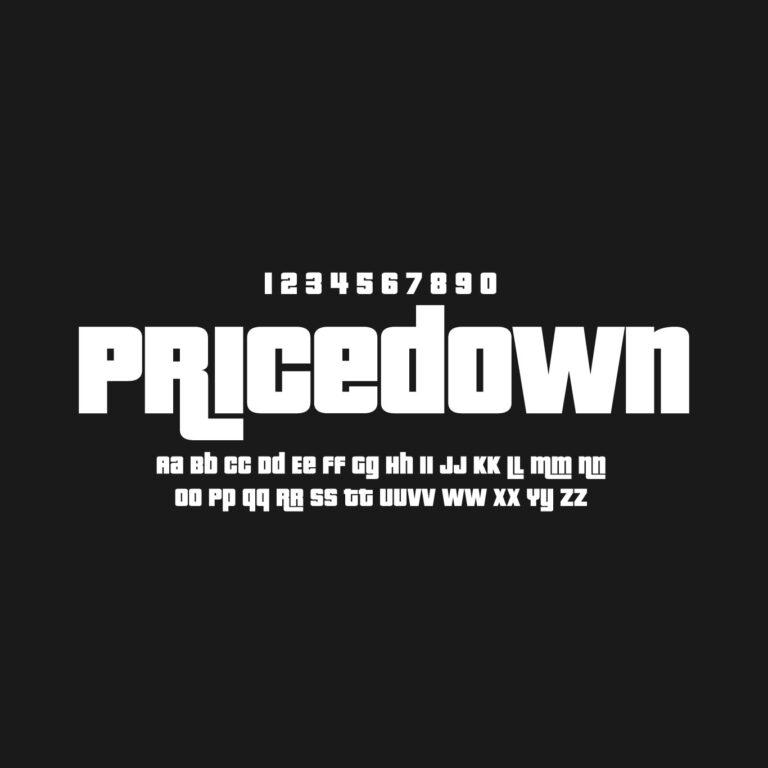
Pricedown Font is a bold display typeface with a distinctive, heavy, and playful lettering style. Its thick shapes, rounded details, and expressive character forms make it a strong choice for designs that need an energetic title font with a retro entertainment feel.
The font is widely recognized for its connection to the visual style associated with the Grand Theft Auto logo, which makes it a popular search choice for users looking for a GTA-style font. However, Pricedown can also be used beyond game-inspired designs, especially in posters, music covers, YouTube thumbnails, event graphics, street-style visuals, and bold branding experiments.
Pricedown was designed by Ray Larabie and published by Typodermic Fonts. The typeface has a strong display personality and works best in large sizes, where its bold curves and compact structure can stand out clearly. It is not a body text font; instead, it is made for headlines, titles, logos, and short words that need immediate visual impact. Typodermic describes Pricedown Black as available for free with a commercial-use desktop license, while broader licensing may be needed for web embedding, apps, or other uses.
Use Pricedown Font when you want a typeface that feels bold, urban, playful, and instantly recognizable. It can work well for gaming graphics, parody-style designs, album covers, digital posters, stickers, social media visuals, and high-impact title layouts.
Designer: Ray Larabie
Foundry: Typodermic Fonts